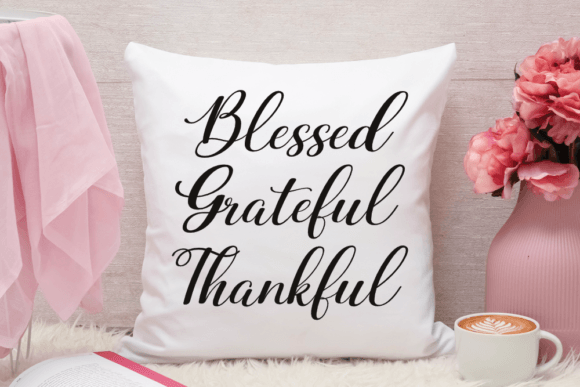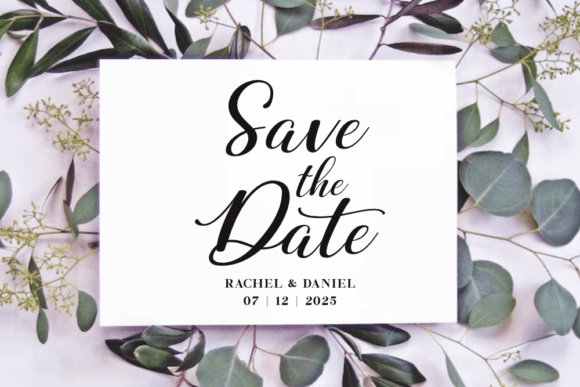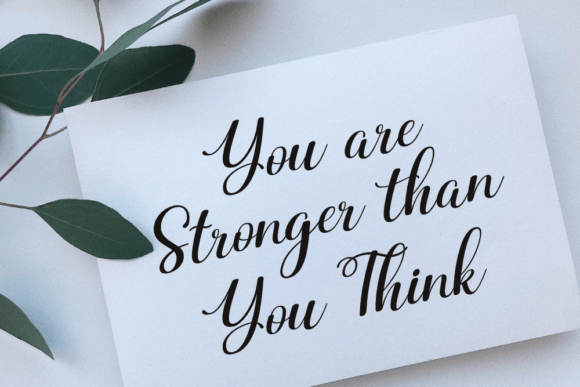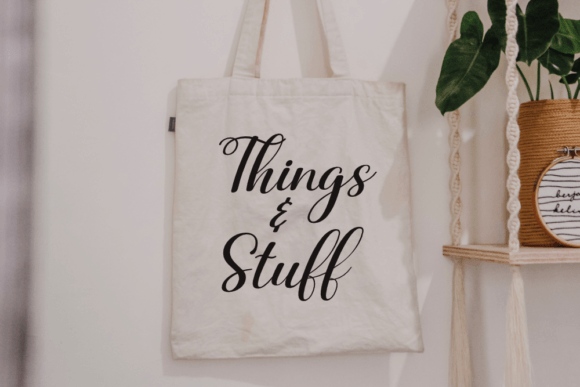
Bravely Font: Elevate Your Designs with Elegance and Sophistication
In the world of typography, a well-crafted font can make all the difference in creating visually stunning designs. If you’re a designer, craft, or simply someone who appreciates beautiful typography, you’re in luck. Introducing Bravely Font, a graceful and modern calligraphic font that’s sure to elevate your designs to new heights. With its beautiful rhythm and elegant flair, Bravely Font is the perfect choice for creating gorgeous and classy compositions.
The Beauty of Bravely Font
Bravely Font is a masterclass in modern calligraphy. Its fluid strokes and harmonious letterforms create a sense of movement and energy, making it perfect for designs that require a touch of sophistication. Whether you’re working on a branding project, invitation, web graphics, or card, Bravely Font is sure to impress. Its versatility and elegance make it an excellent choice for a wide range of applications, from wedding invitations to business branding.
Key Features of Bravely Font
• Modern Calligraphic Style: Bravely Font boasts a fresh and contemporary take on traditional calligraphy, making it perfect for designs that require a modern twist.
• Beautiful Rhythm: The font’s harmonious letterforms and flowing strokes create a beautiful rhythm that’s sure to captivate your audience.
• Elegant and Classy: Bravely Font exudes sophistication and elegance, making it perfect for high-end branding, invitations, and other premium designs.
• Versatile: From web graphics to print materials, Bravely Font is versatile enough to be used across a wide range of applications.
Why Choose Bravely Font?
With so many fonts available, why choose Bravely Font? Here are just a few reasons why designers and crafters are falling in love with this beautiful font:
• Unique and Memorable: Bravely Font’s distinctive style ensures that your designs will stand out from the crowd and leave a lasting impression.
• Easy to Read: Despite its elegant and cursive nature, Bravely Font remains highly legible, making it perfect for body text and headlines.
• Highly Customizable: With its wide range of applications and flexible design, Bravely Font can be tailored to suit your specific design needs.
Inspiration and Ideas for Using Bravely Font
Now that you’ve fallen in love with Bravely Font, it’s time to get creative! Here are some inspiration and ideas for using this beautiful font:
• Wedding Invitations: Create stunning wedding invitations, save-the-dates, and thank-you cards with Bravely Font’s elegant and sophisticated style.
• Branding and Logo Design: Use Bravely Font to create a memorable and luxurious brand identity that exudes elegance and refinement.
• Web Graphics: Add a touch of sophistication to your website with Bravely Font, perfect for headings, titles, and other design elements.
• Cards and Stationery: Create beautiful greeting cards, stationery, and letterheads with Bravely Font’s beautiful rhythm and elegant flair.
In conclusion, Bravely Font is a stunning and versatile calligraphic font that’s sure to elevate your designs to new heights. With its beautiful rhythm, elegant style, and wide range of applications, Bravely Font is the perfect choice for designers, crafters, and anyone who appreciates beautiful typography. So why wait? Discover the beauty of Bravely Font today and take your designs to the next level!